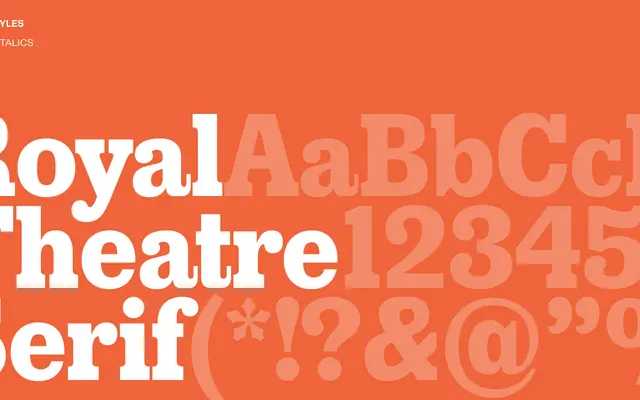
Royal Theatre Serif
A display serif from Playtype with a theatrical character suited to editorial and branding contexts.
Royal Theatre Serif carries the dramatic sensibility its name implies, designed for large-scale use in editorial, poster and identity work. The theatrical framing suggests a typeface built for expressive settings where personality takes precedence over neutrality. Details remain sparse on the page, but the tone aligns with Playtype's broader catalogue of characterful display faces.
The name and theatrical framing suggest a display serif designed for expressive, large-scale use, typical of Playtype's editorial and branding-oriented releases.